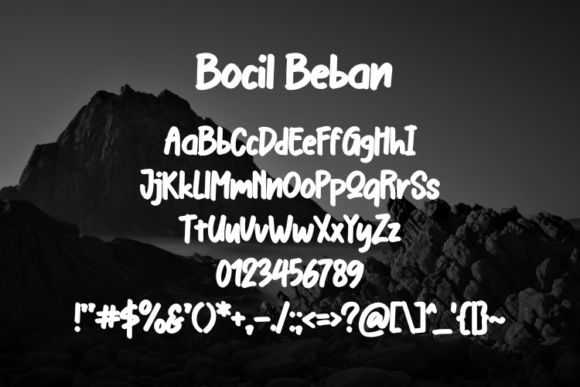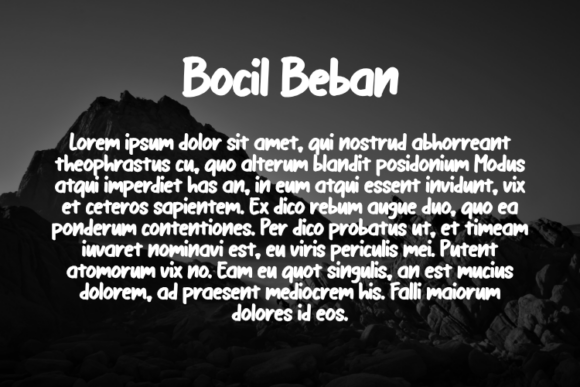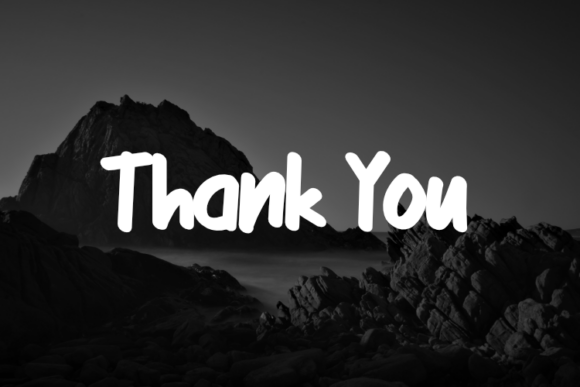
Unleashing Your Creativity with the Perfect Font
Have you ever had one of those moments where you’re brainstorming a new design concept, and everything just clicks into place? The colors, the typography, the overall aesthetic – it’s like the universe is speaking directly to your creative soul. For many designers, this moment is made even more special with the right font, and that’s where the Bocil Beban Font comes in.
This versatile font is specifically designed for dynamic apparel and product designs, and its compatibility with all major design software makes it a universal choice for style enthusiasts. Whether you’re creating a bold t-shirt design or a sophisticated product label, the Bocil Beban Font is sure to elevate your design elements to new levels of sophistication.
Bocil Beban Font Key Features
- Font Family: Bocil Beban Font
- Unique Characteristics: The font features a unique blend of traditional and modern elements, with intricate details and textures that give it a distinctive look and feel
Bocil Beban Font Review
I recently had the chance to work with the Bocil Beban font, and here’s my honest take on it.
- Unique and creative design: The Bocil Beban font has a distinct look that sets it apart from more common fonts.
- Good for titles and headings: The font’s bold and playful nature makes it perfect for use in titles and headings.
- Highly customizable: The font comes in a variety of styles and weights, making it easy to find the perfect fit for your project.
- Difficult to read in body text: The font’s unique design can make it challenging to read in large blocks of text.
- Not suitable for all audiences: The font’s playful nature may not be suitable for more formal or professional projects.
- Requires careful kerning: The font’s irregular shape can make kerning (the spacing between characters) a bit tricky.
The Bocil Beban font is a great choice for designers looking to add some creativity and personality to their projects. While it may have some limitations, its unique design and high level of customization make it a valuable addition to any font collection.
Tips for Getting the Most Out of Bocil Beban Font
Experiment with different font sizes and colors to create visual interest. Use Bocil Beban Font for headings or titles to add a touch of elegance to your design. Consider pairing it with other fonts to create a unique and eye-catching combination.
Bocil Beban Font is ideal for creative projects, such as wedding invitations, menus, and social media graphics. It’s also great for personal projects, like blog headers or social media profiles. With its unique and stylish design, Bocil Beban Font is sure to make your designs stand out.
Alternatives to Bocil Beban Font
Pacifico is a beautiful, elegant script font that is perfect for adding a touch of sophistication to your designs. It works well for logos, branding, and titles. Compared to Bocil Beban Font, Pacifico has a more refined and classic feel, making it ideal for high-end projects. It’s a great choice for designers who want to add a sense of luxury and elegance to their work.
Great Vibes is a modern script font that is perfect for creating a relaxed and casual atmosphere in your designs. It works well for headlines, titles, and quotes. Compared to Bocil Beban Font, Great Vibes has a more laid-back and friendly feel, making it ideal for projects that require a fun and approachable tone. It’s a great choice for designers who want to add a sense of playfulness and creativity to their work.
Q: What is the recommended font size for using Bocil Beban Font?
The recommended font size for Bocil Beban Font varies depending on the intended use and the software application. However, as a general guideline, we recommend using font sizes between 12pt and 24pt for body text, and larger font sizes (such as 36pt or 48pt) for headings and titles.